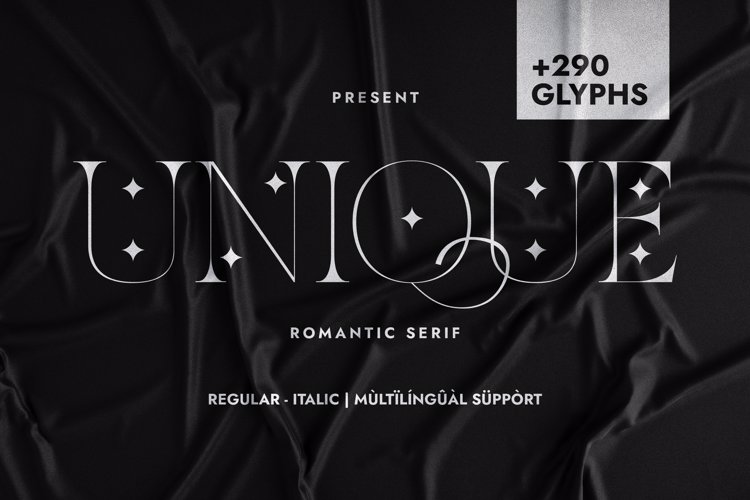
UNIQUE Font
italic Style
π¨ Font Name: Unique by Minimalist Art Studio
π¨ Font Description: Unique is a romantic serif with 290+ glyphs and multilingual supportβideal for dreamy branding, elegant packaging, and editorial charm.
β Complete Latin set + multilingual diacritics
β Alternates, stylistic sets & ligatures
β Numbers, small caps, and extended punctuation
β Bonus italics and family styles